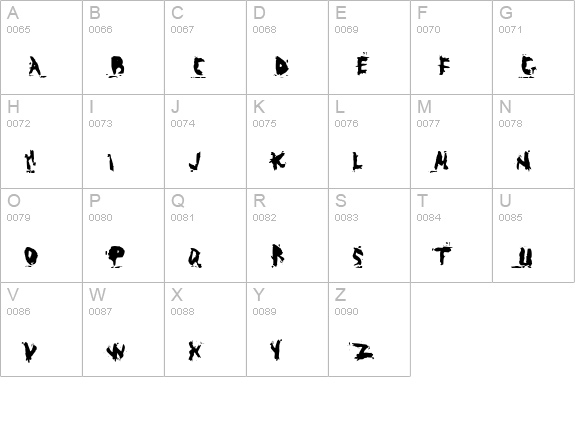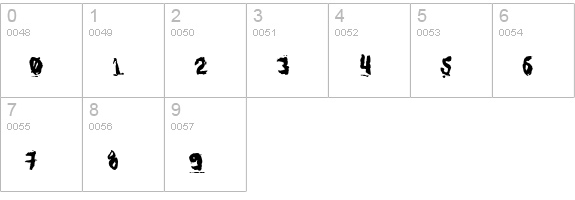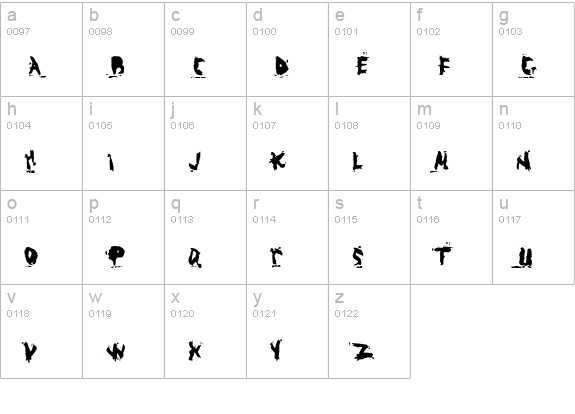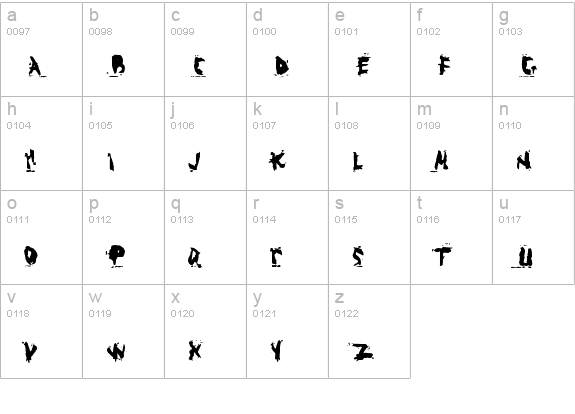
ABUSO Font Details
ABUSO font is a bold and stylish typeface that exudes a sense of strength and confidence. With its sharp edges and modern aesthetic, ABUSO is perfect for making a statement in your designs. This versatile font can be used for a variety of projects, from logos to posters to social media graphics. The best part about ABUSO font is that it is completely free to download at FontsMarket.com. Whether you're a seasoned designer looking to add a new font to your collection or a beginner searching for the perfect typeface for your next project, ABUSO is a fantastic choice. Download it today and elevate your designs with this striking and eye-catching font.